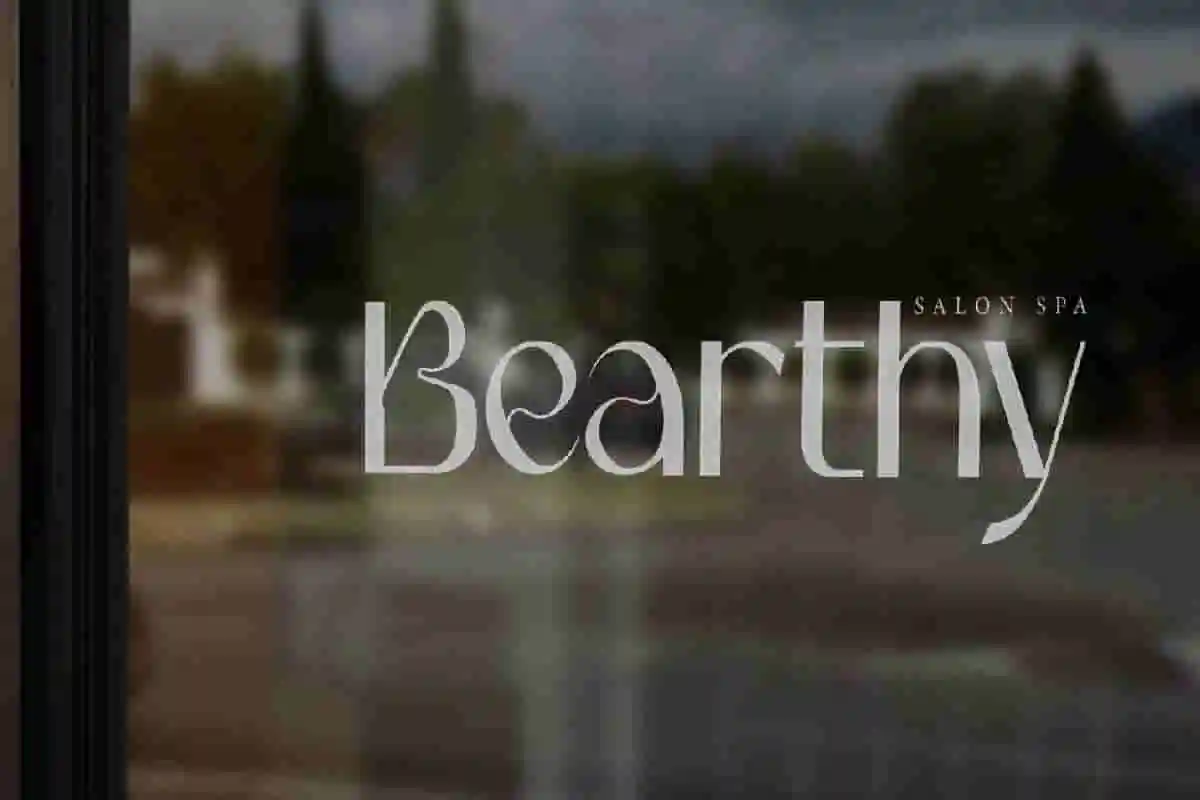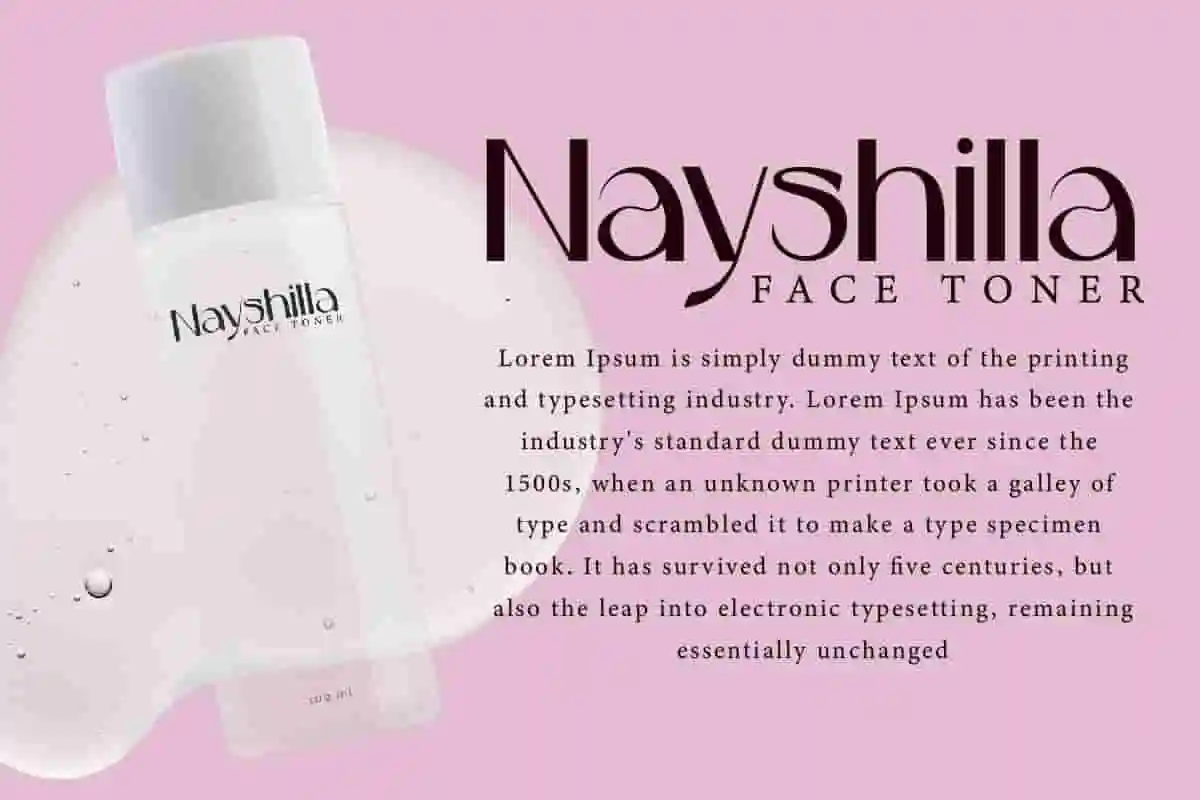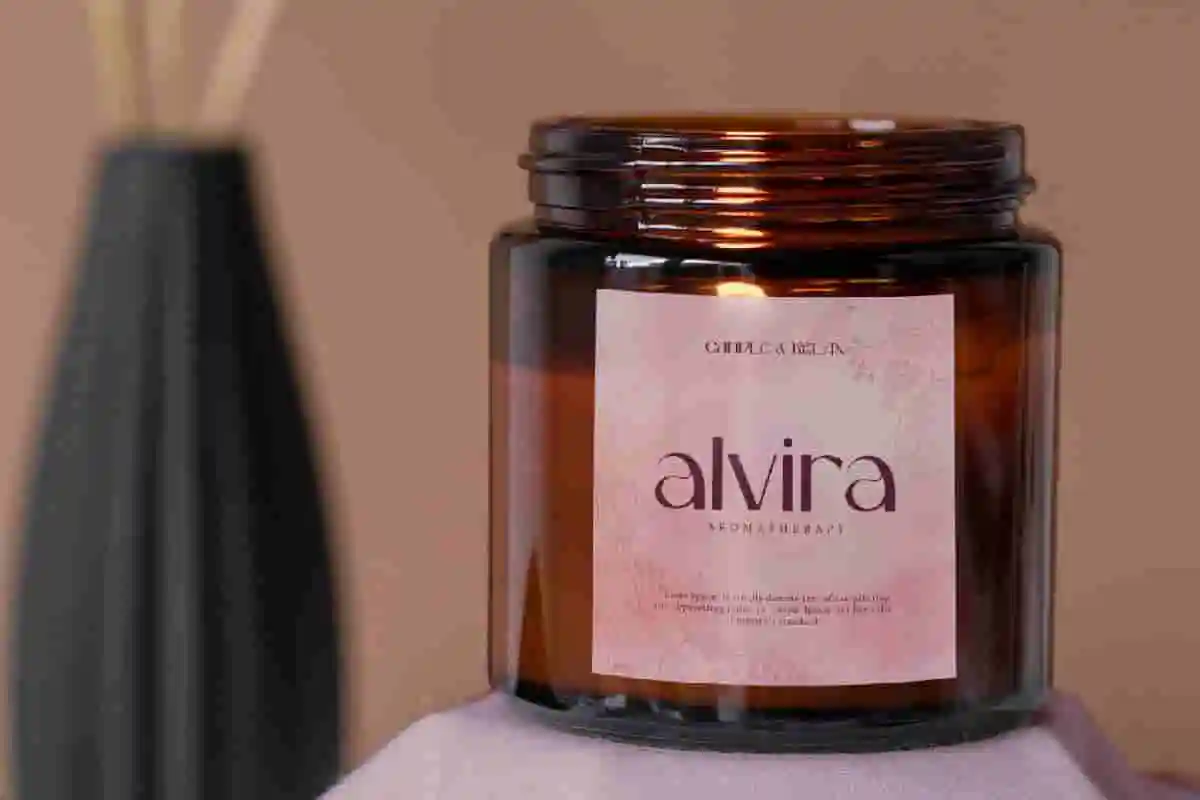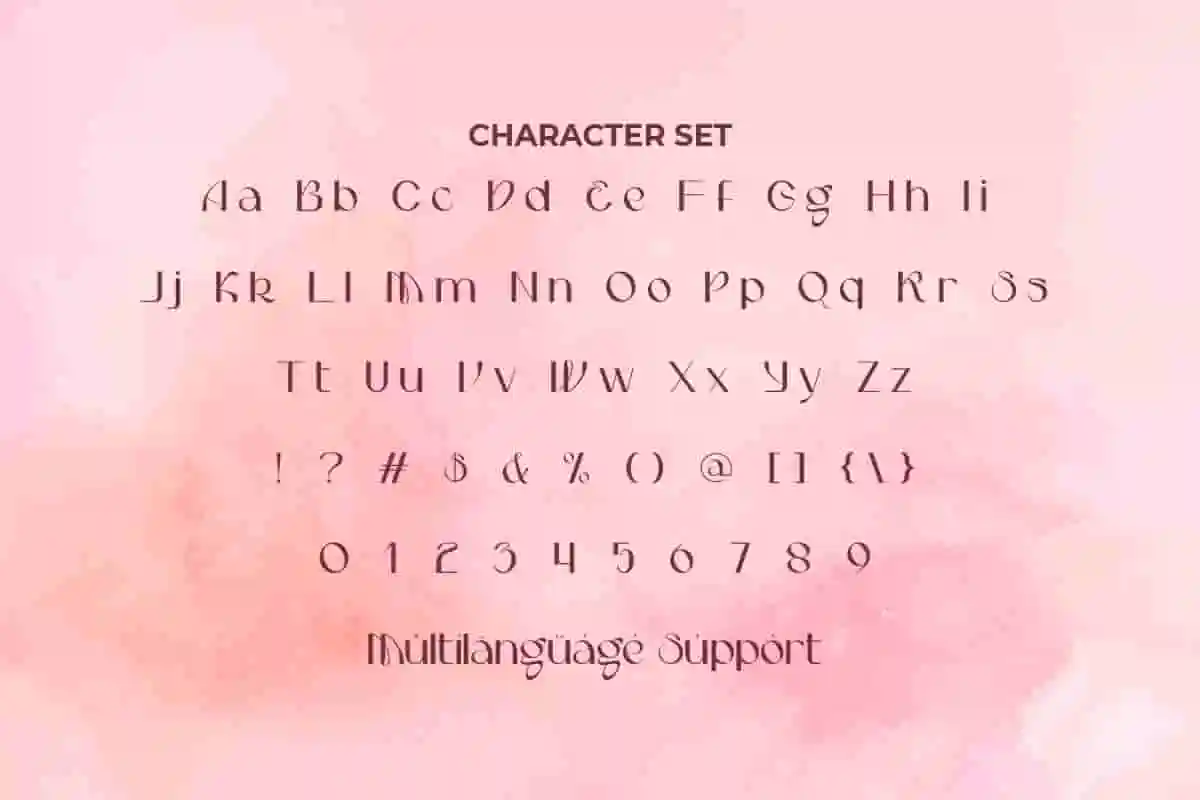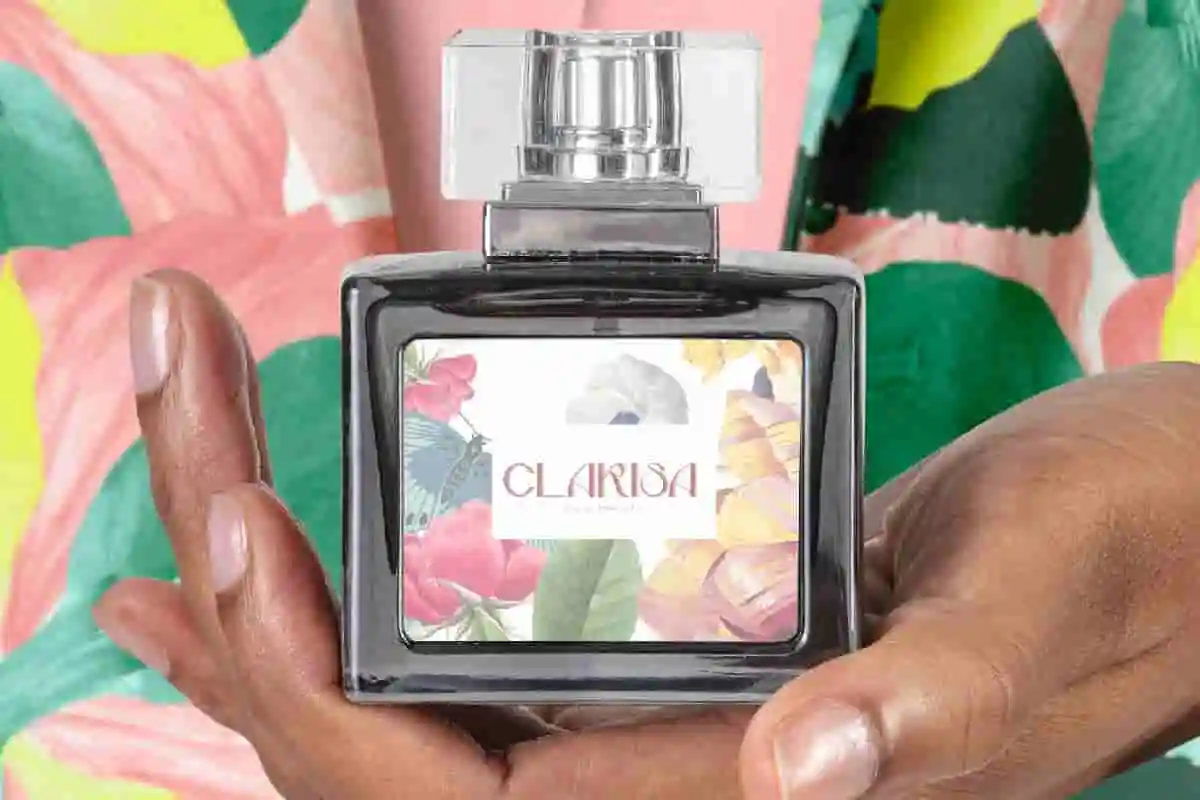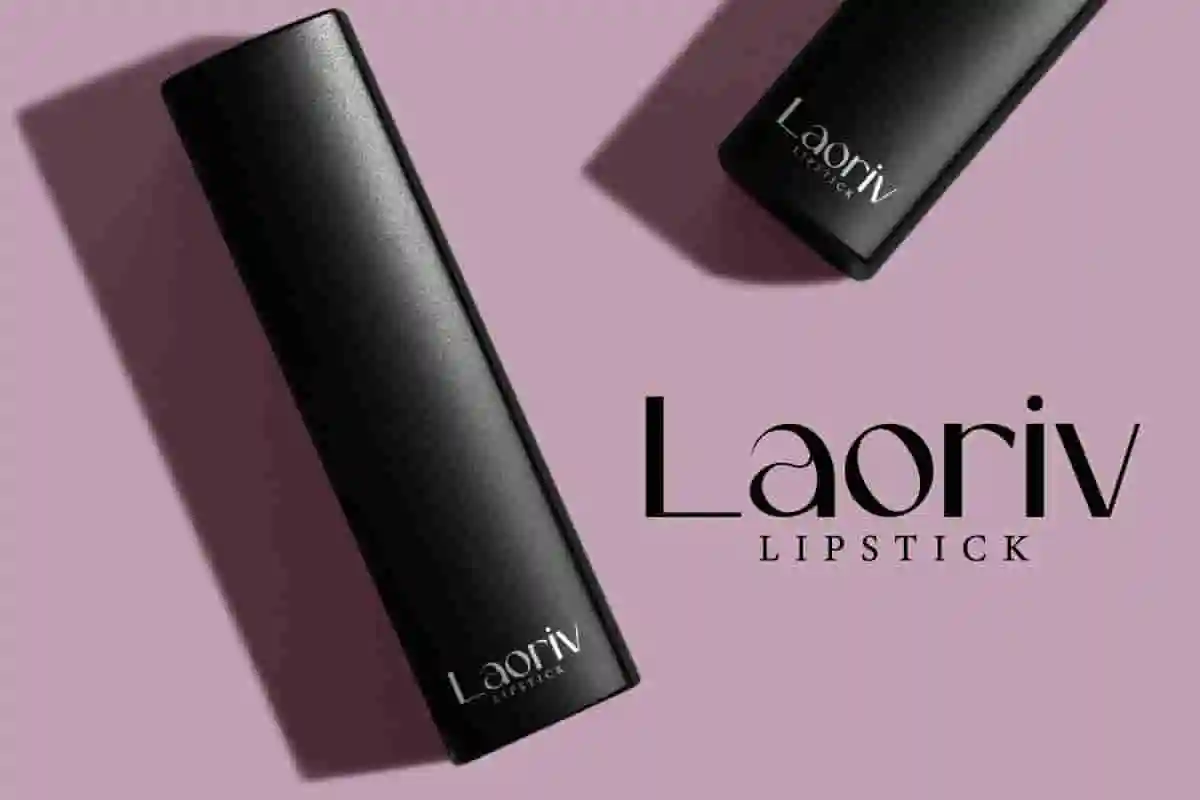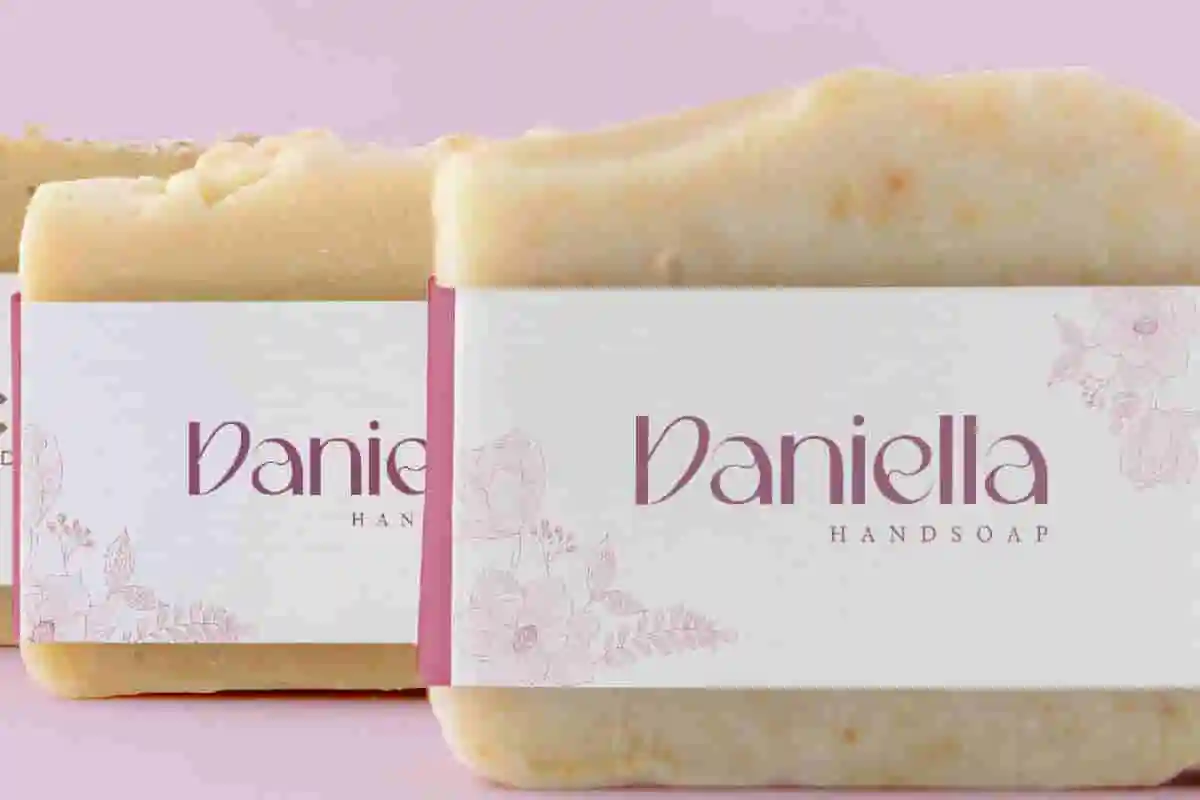
Beauty Sense Font is a beautiful stylish display font with a combination of thin and thick lines that are also wavy to add an artistic touch to the design, such as brand image, business card, catalog, cover, custom design, invitation, label, poster, quote, signage, stationery, web, and more!
Beauty Sense Font includes full set of Uppercase and Lowercase Basic Characters, Numerals and Punctuation. The characters of this font will give modern and stylish appearances and perfect choice for many industries, such as advertisement, beauty product, café, event or wedding organizer, fashion, movie, printing, publishing, spa and salon, etc.